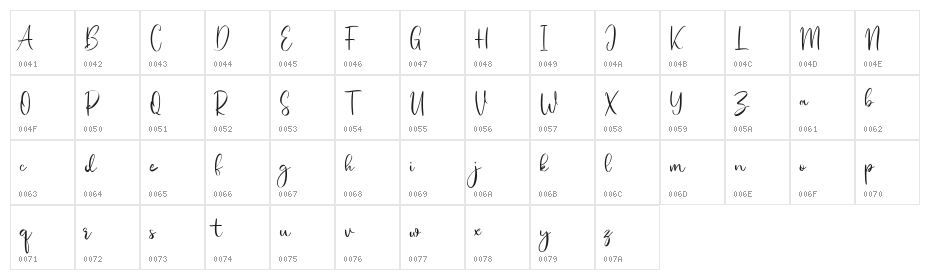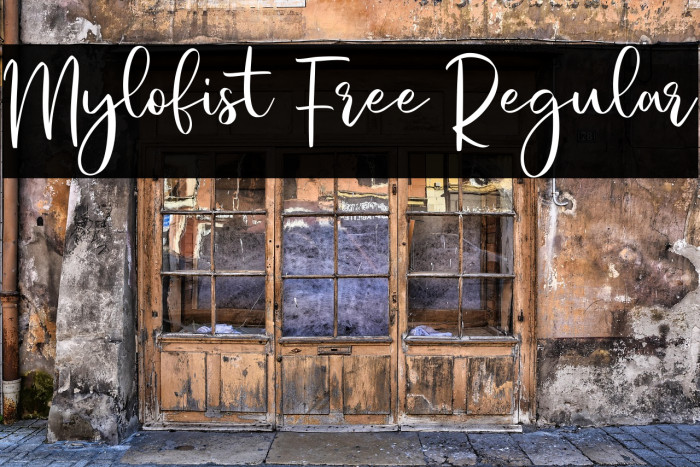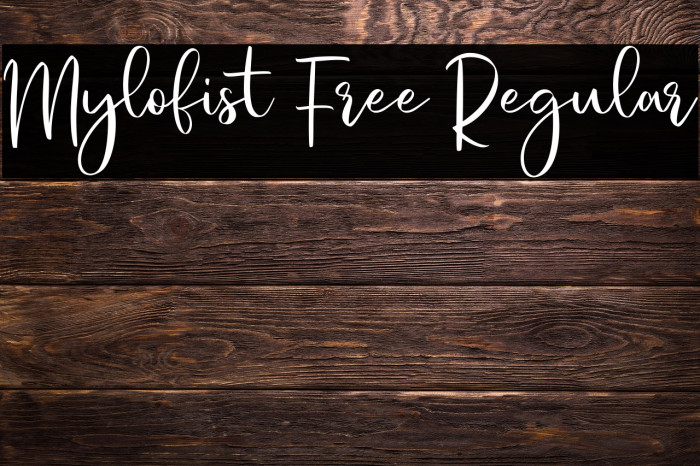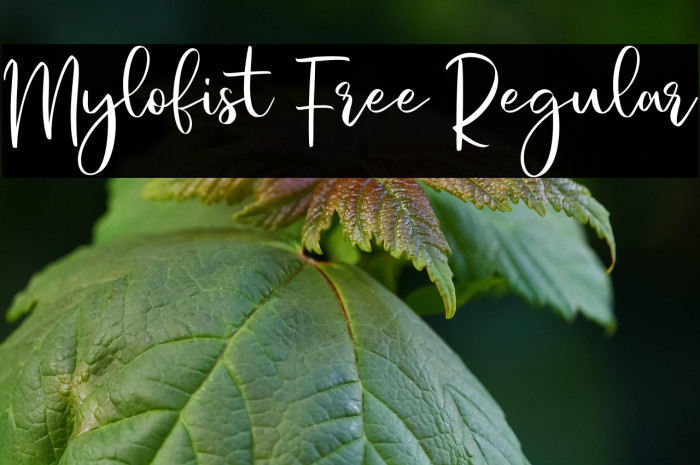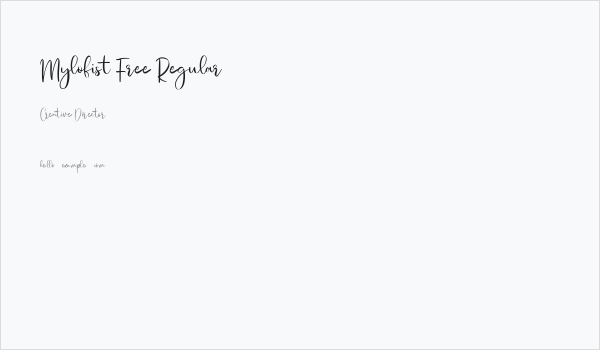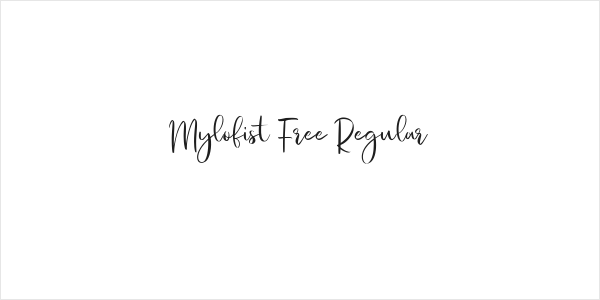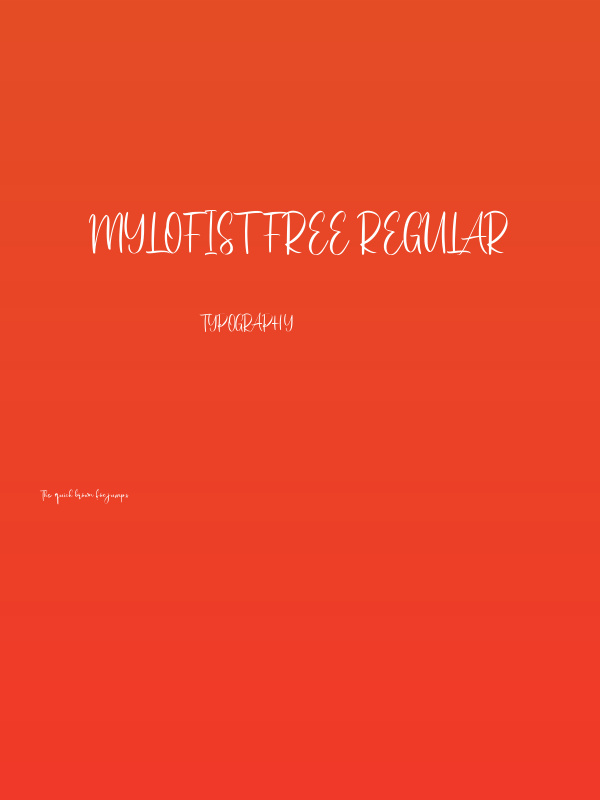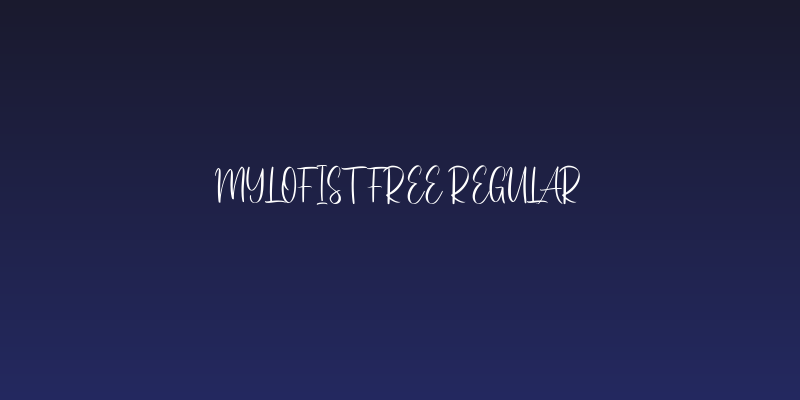
Mylofist Free Regular Font
Mylofist Free Regular Description
This font features a flowing, handwritten style with elegant curves and a playful yet sophisticated appearance. The uppercase letters are tall and slender, with a slight slant that adds a dynamic feel. The lowercase letters maintain a consistent style, with smooth connections between strokes, enhancing the script-like quality. The overall look is both modern and classic, making it versatile for various design needs. The font's unique character is highlighted by its graceful loops and swashes, providing a sense of movement and fluidity.